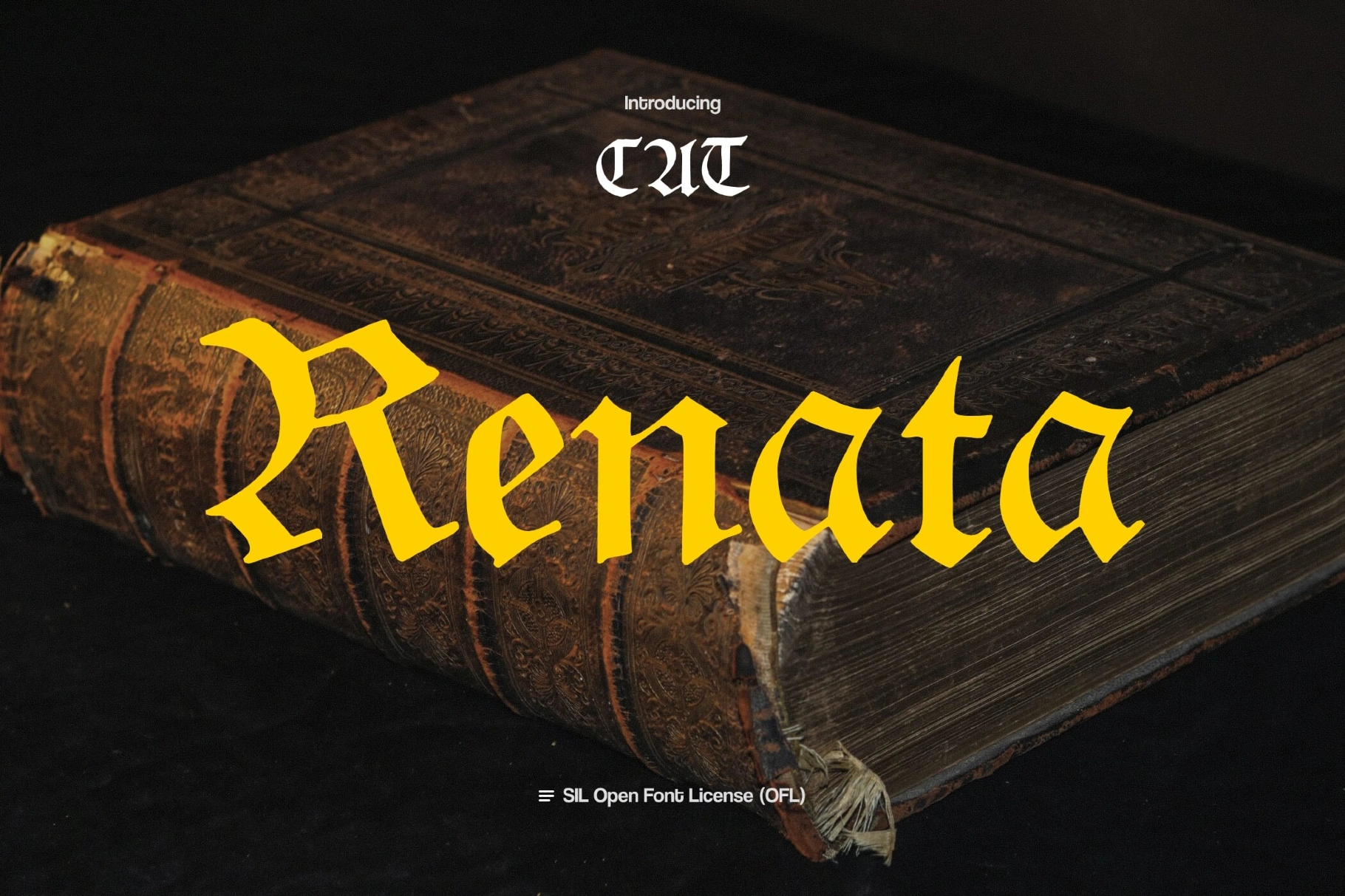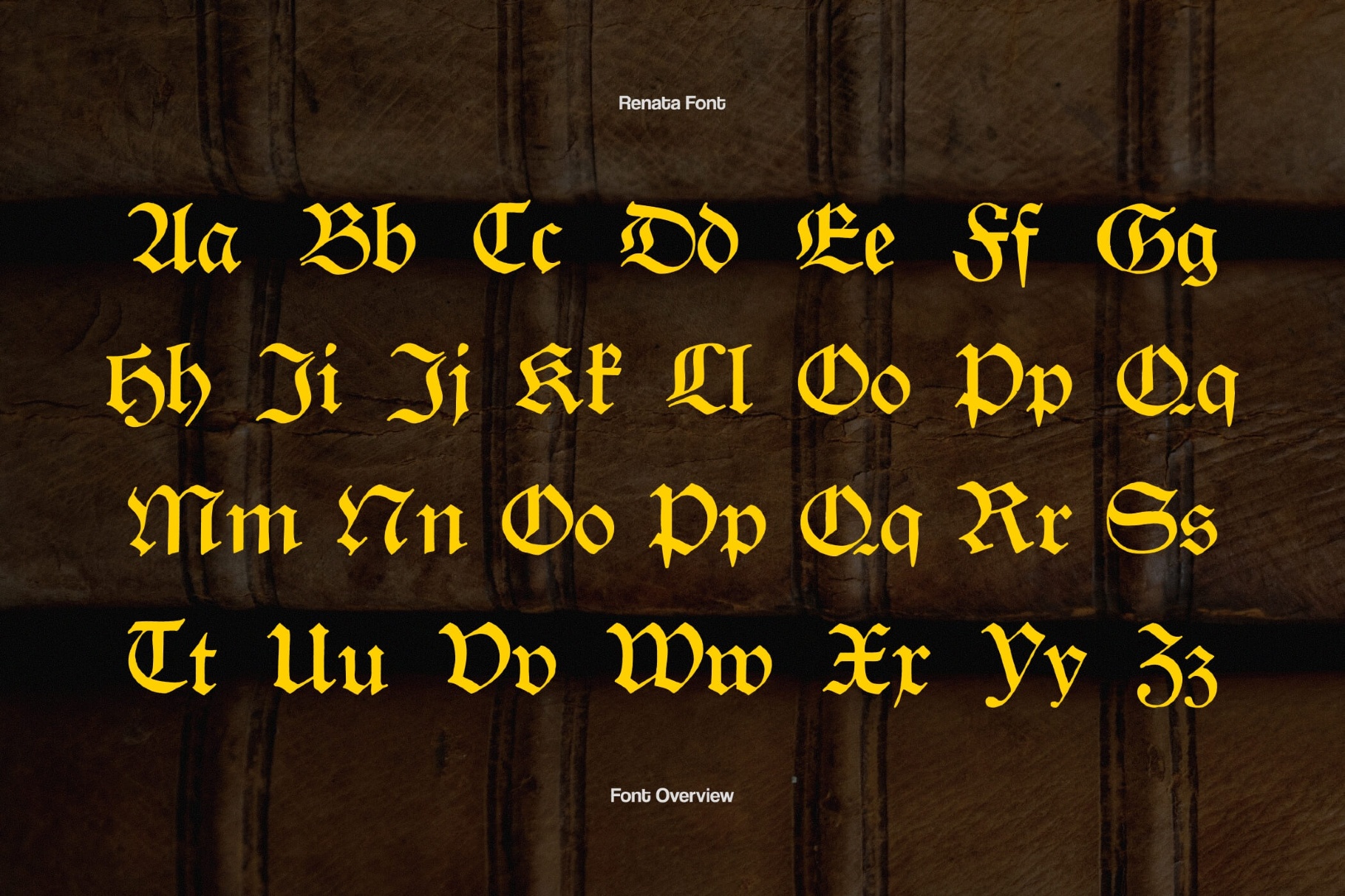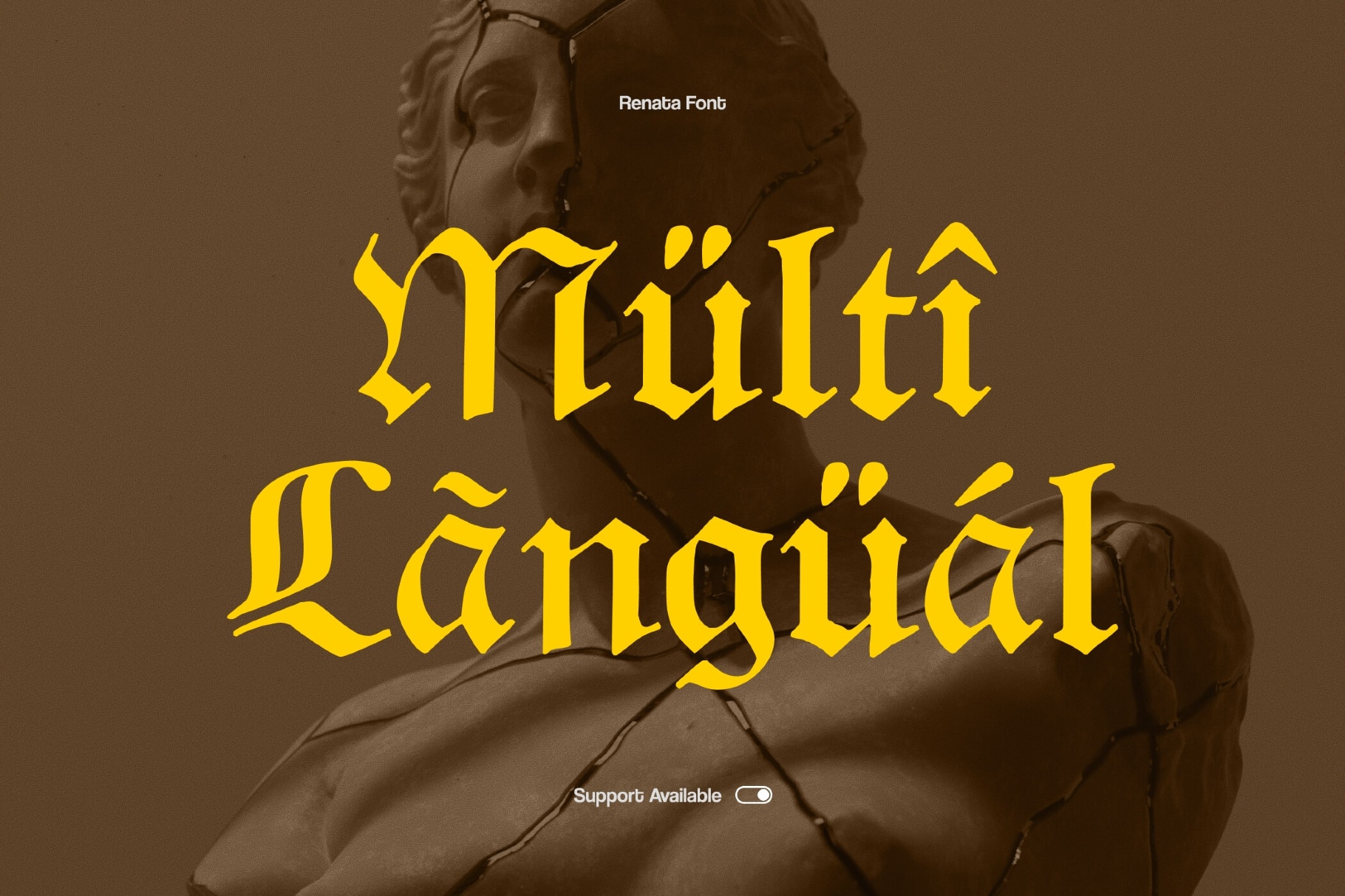
Renata Gothic Font
Renata CAT
The Renata delivers broad strokes, sharp inner corners, and slightly irregular curves. In fact, the typeface carries the rounder, softer rhythm of traditional Schwabacher while retaining its iconic traits.
Designers can set striking book covers for historical fiction or fantasy, opening titles for films and series with a period mood, and album art for metal, folk, or experimental projects. The type family works well for labels on wine, beer, or spirits, branding for barbershops and tattoo studios, posters for themed events, and in-game typography for medieval or dark RPG interfaces.